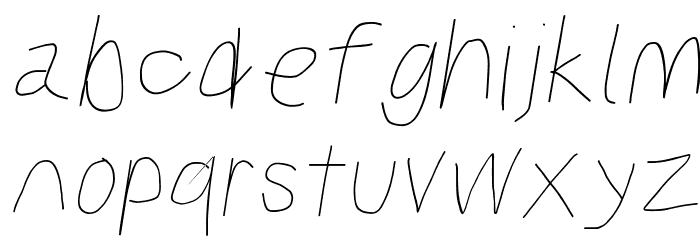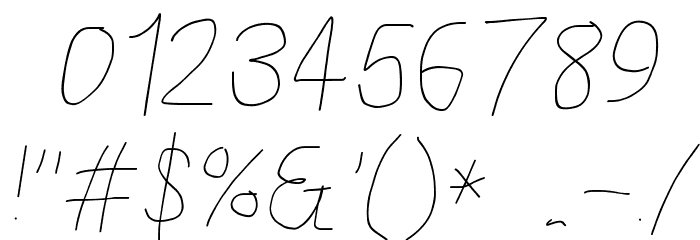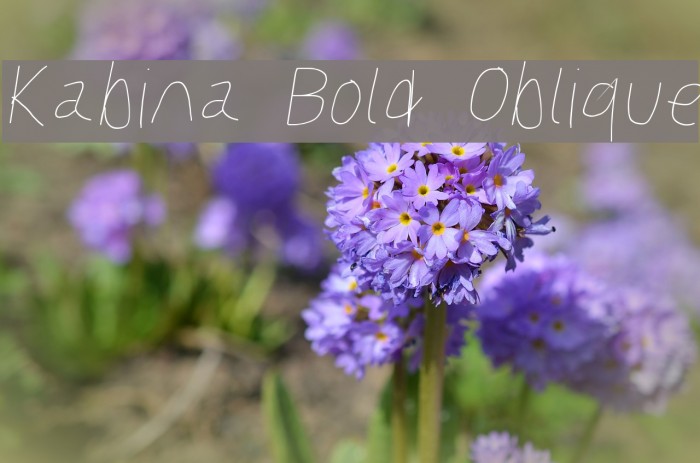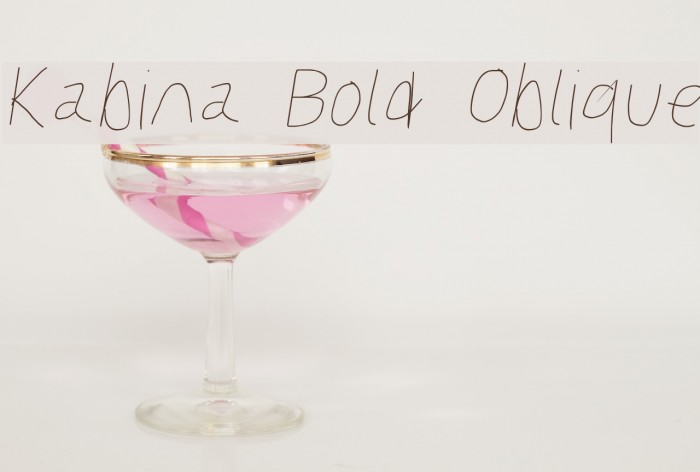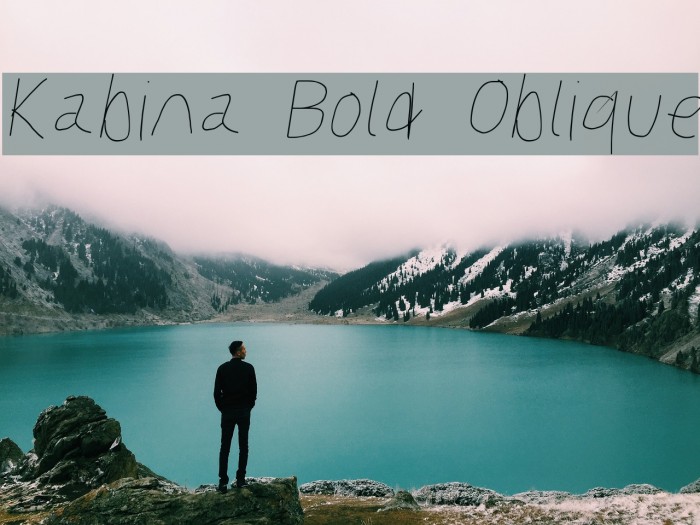
Kabina Bold Oblique Font
This font features a handwritten, casual style with a slight slant, giving it an oblique appearance. The characters are thin and elongated, with a consistent stroke width that maintains a clean and legible look. The uppercase and lowercase letters are distinct, with a playful yet sophisticated touch. The numerals are clear and easy to read, matching the overall style of the alphabet. Special characters are included, maintaining the same handwritten aesthetic. This font is versatile, suitable for projects that require a personal and approachable feel.
A handwritten, oblique font with thin, elongated characters and a casual style.
- Proposed Projects: Ideal for personal invitations, greeting cards, casual branding, and creative projects that require a personal touch.
- Category: Handwritten
- Overall Style: Casual, Handwritten
- Use Case: Logos, Invitations, Greeting Cards